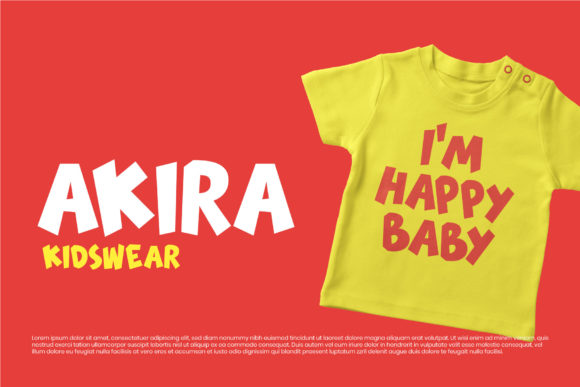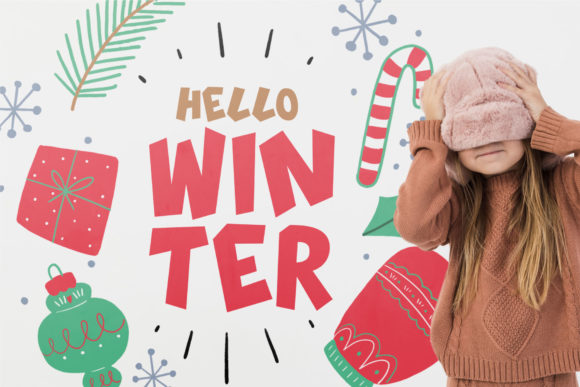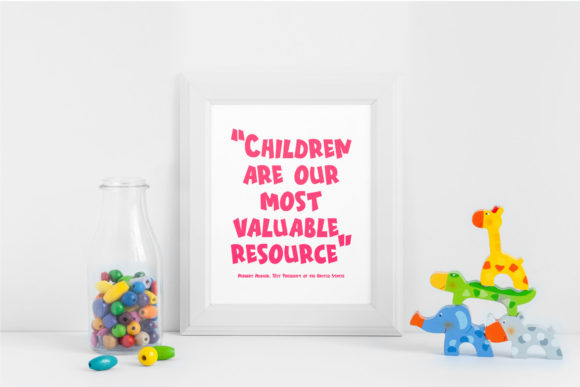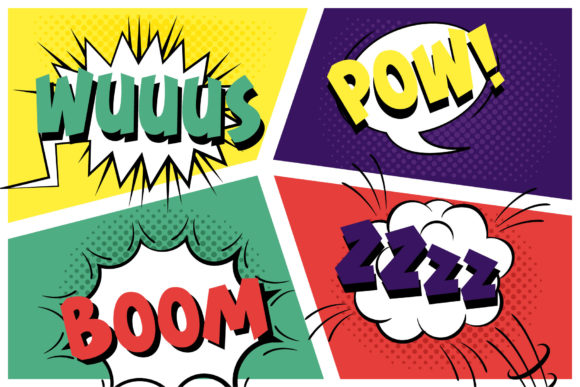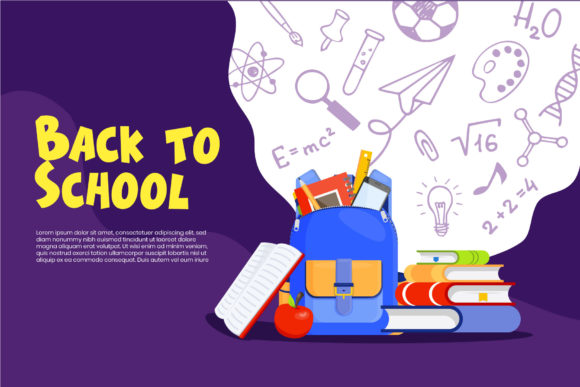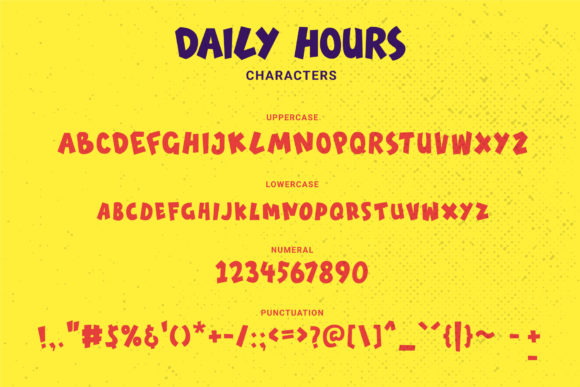
Introducing Daily Hours Font: The Ultimate Display Font for Creative Projects
Are you tired of using the same old fonts for your creative projects? Look no further! Daily Hours Font is an exciting, bold, and playful display font that’s perfect for adding a touch of personality to your designs. In this article, we’ll dive into the features and benefits of Daily Hours Font, and explore how you can use it to take your designs to the next level.
What is Daily Hours Font?
Daily Hours Font is a stunning display font that’s designed to make a statement. With its bold and playful style, it’s perfect for use in a variety of creative projects, from logos and quotes to invitations and blog posts. This font is all caps, making it ideal for headlines, titles, and short phrases. It also includes numbers and punctuation, giving you everything you need to create visually appealing text.
Key Features of Daily Hours Font
- Bold and Playful Style: Daily Hours Font has a unique and eye-catching style that’s sure to grab attention.
- All Caps: This font is perfect for creating bold headlines and titles.
- Includes Numbers and Punctuation: With numbers and punctuation included, you have everything you need to create complete and visually appealing text.
- Versatile: Daily Hours Font can be used in a wide range of creative projects, from logos and business cards to presentations and blog posts.
How to Use Daily Hours Font
Daily Hours Font is incredibly versatile, making it perfect for a wide range of creative projects. Here are some ideas to get you started:
- Logos: Use Daily Hours Font to create a bold and eye-catching logo for your business or brand.
- Quotes: Add a touch of personality to your quotes with Daily Hours Font.
- Invitations: Create custom invitations for weddings, parties, and other events with Daily Hours Font.
- Blog Posts: Use Daily Hours Font to add headings and titles to your blog posts.
- Business Cards: Create custom business cards with Daily Hours Font.
- Presentations: Add a touch of personality to your presentations with Daily Hours Font.
Benefits of Using Daily Hours Font
There are many benefits to using Daily Hours Font in your creative projects. Here are just a few:
- Stand Out from the Crowd: With its bold and playful style, Daily Hours Font is sure to help your designs stand out from the crowd.
- Save Time: With Daily Hours Font, you can create visually appealing text quickly and easily.
- Increase Engagement: Daily Hours Font is designed to grab attention and hold it, making it perfect for use in social media posts and other online content.
Tips for Using Daily Hours Font
Here are a few tips for getting the most out of Daily Hours Font:
- Use it Sparingly: Daily Hours Font is bold and eye-catching, so use it sparingly to avoid overwhelming your designs.
- Experiment with Colors: Daily Hours Font looks great in a wide range of colors, so don’t be afraid to experiment and find the perfect color for your design.
- Pair it with Other Fonts: Daily Hours Font pairs well with a wide range of other fonts, so don’t be afraid to get creative and try out different combinations.
Daily Hours Font is an exciting, bold, and playful display font that’s perfect for adding a touch of personality to your creative projects. With its bold and playful style, all caps design, and inclusion of numbers and punctuation, it’s the perfect choice for a wide range of designs. Whether you’re a designer, crafter, or simply someone who loves to create, Daily Hours Font is sure to become a favorite in your toolkit.